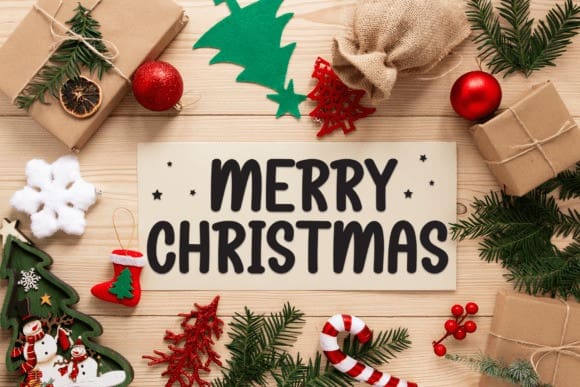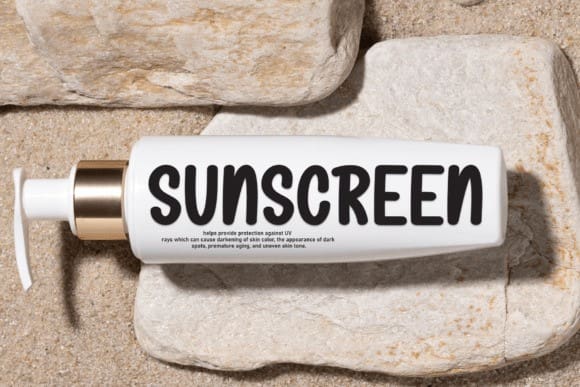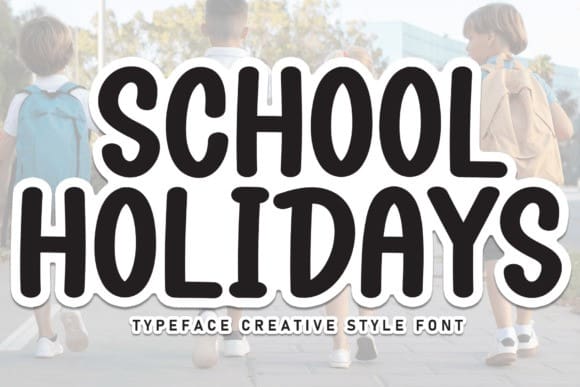
School Holidays Font
School Holidays Font is a sweet and friendly handwritten font. Its natural and unique style makes it incredibly fitting to a large pool of designs. The only limit is your imagination!